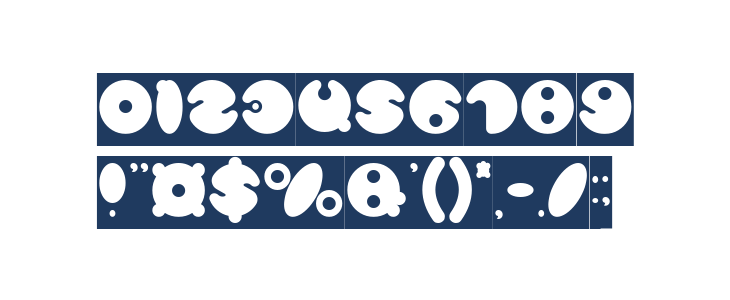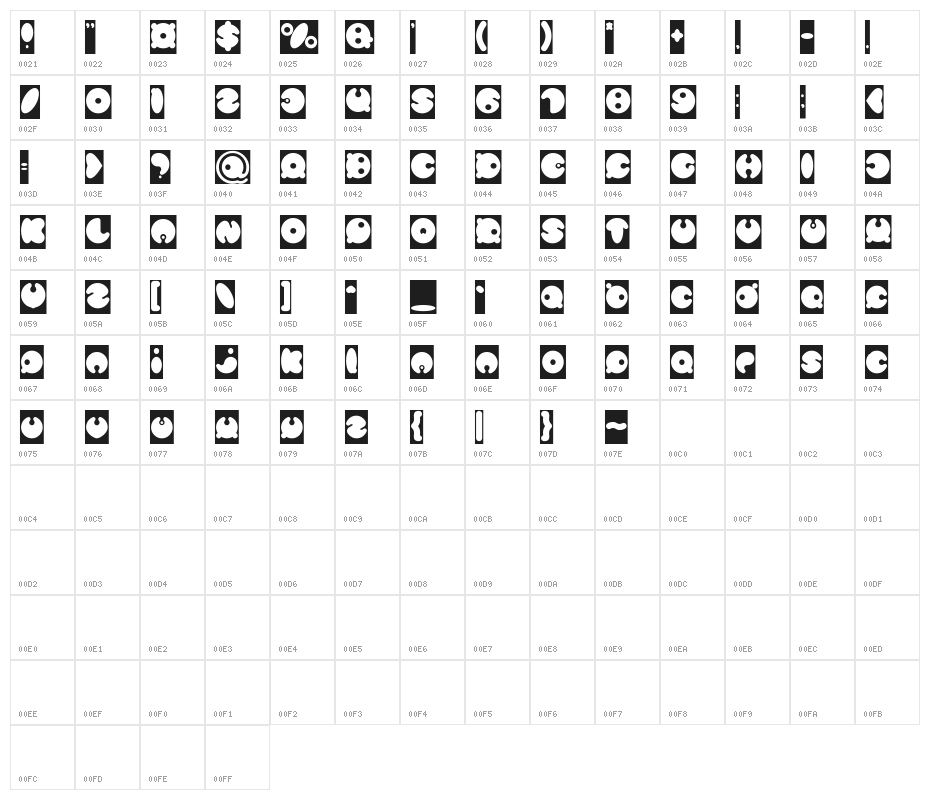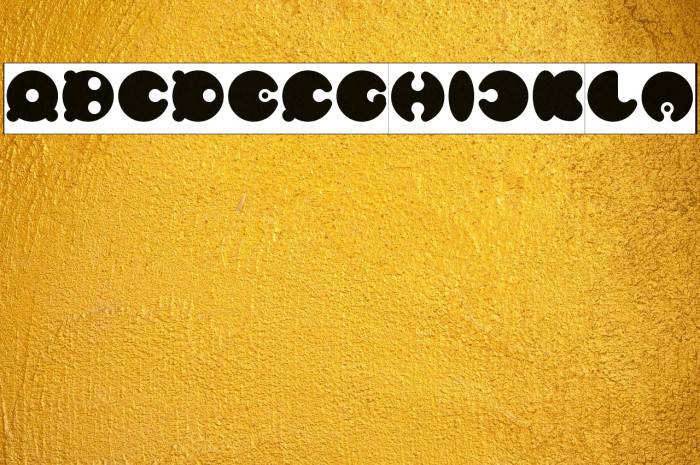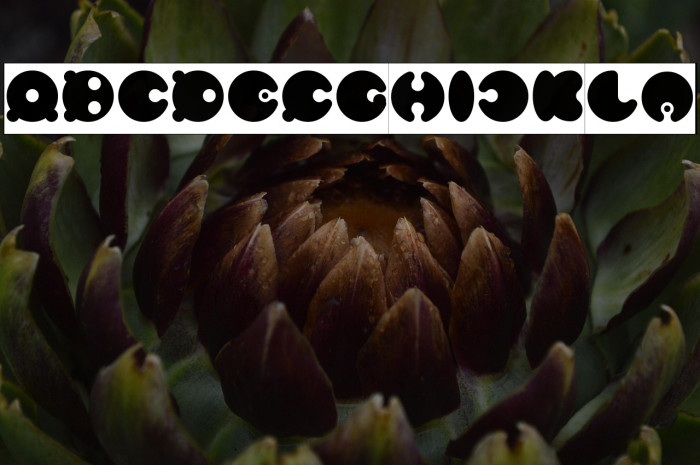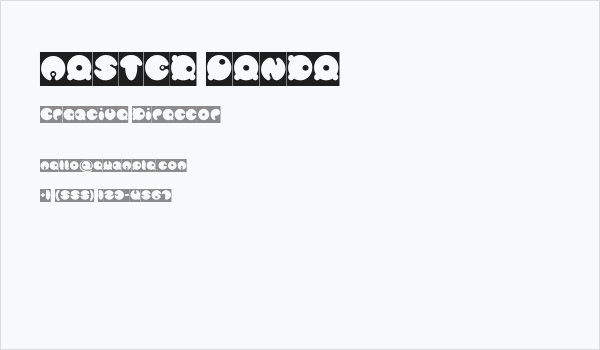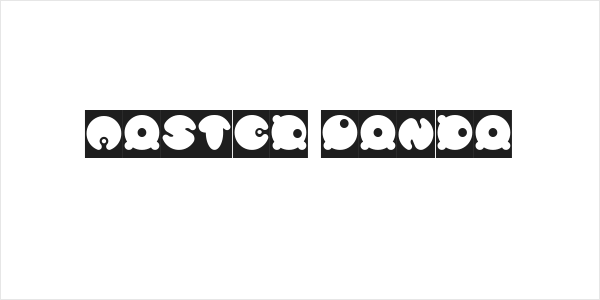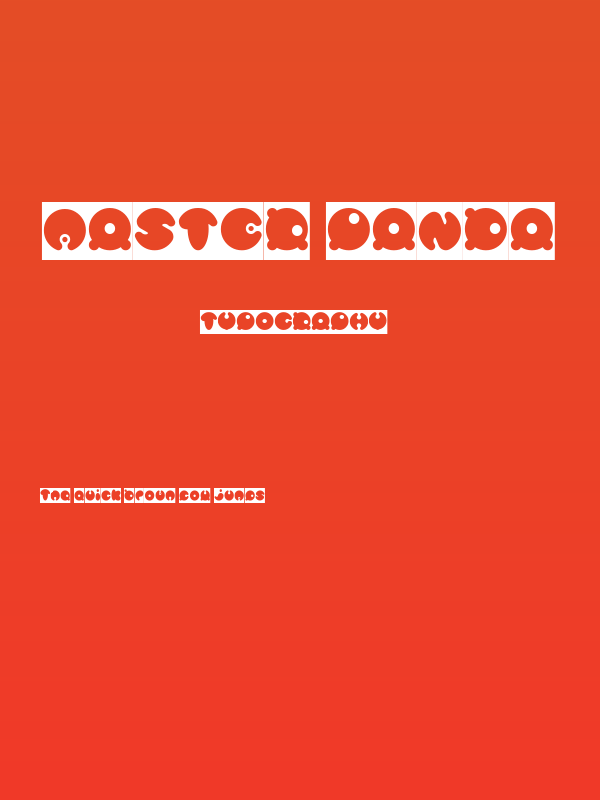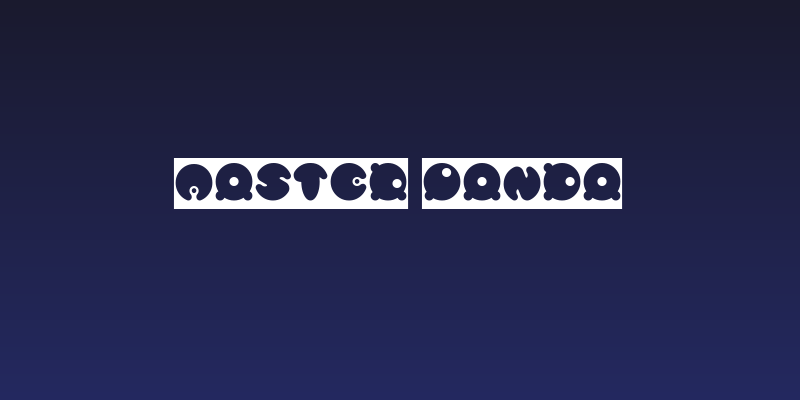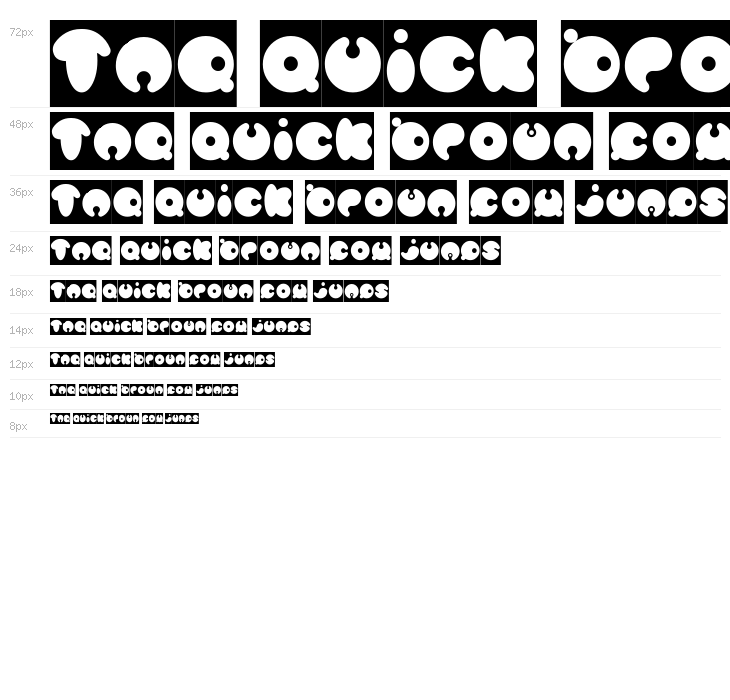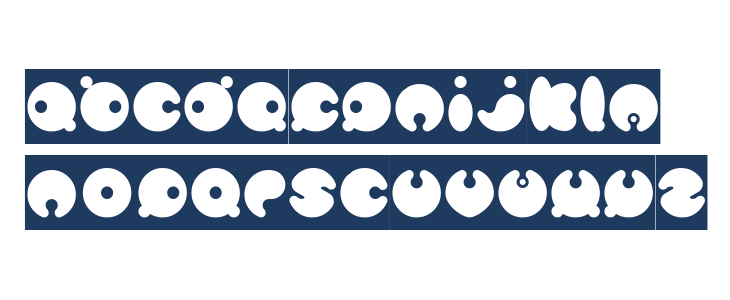
MASTER PANDA Font
MASTER PANDA Description
This font features a playful and bold design with rounded, bubble-like characters. Each letter is enclosed within a circular or oval shape, creating a cohesive and uniform appearance. The characters are highly stylized, with exaggerated curves and a whimsical aesthetic. The font's unique design elements make it stand out, with a focus on circular forms and a sense of fun. The letters are evenly spaced within their individual shapes, maintaining a consistent look across the alphabet. This font is ideal for projects that require a touch of creativity and playfulness, offering a distinctive and eye-catching style.
| Overall Style | Playful, Whimsical |
| Use Case | Logos, Headlines, Posters |
| Proposed Projects | Ideal for children's books, playful branding, party invitations, and creative posters. |